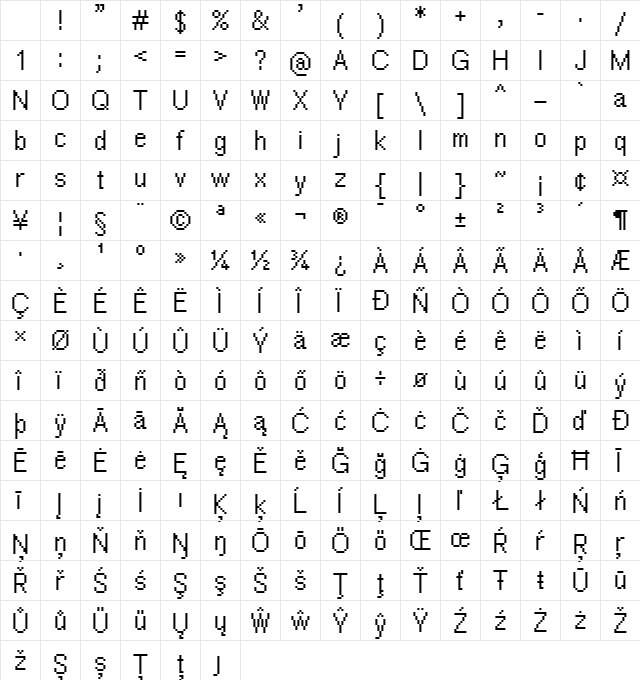
Complete FK Raster Grotesk Compact Sharp glyph index. Displaying only characters natively supported by FK Raster Grotesk Compact Sharp font.
FK Raster Grotesk Compact takes a clean, functional approach - its unadorned letterforms prioritise legibility and work reliably across screen and print environments. Its narrow stance lets it pack a punch even in space-constrained designs.
Font Pairing: Works well alongside a characterful serif or display font that can carry the expressive load while FK Raster Grotesk Compact handles the functional copy.
Pro Tip: Use FK Raster Grotesk Compact tightly set in headlines and banners - its condensed proportions make it ideal for maximum impact in minimum horizontal space.